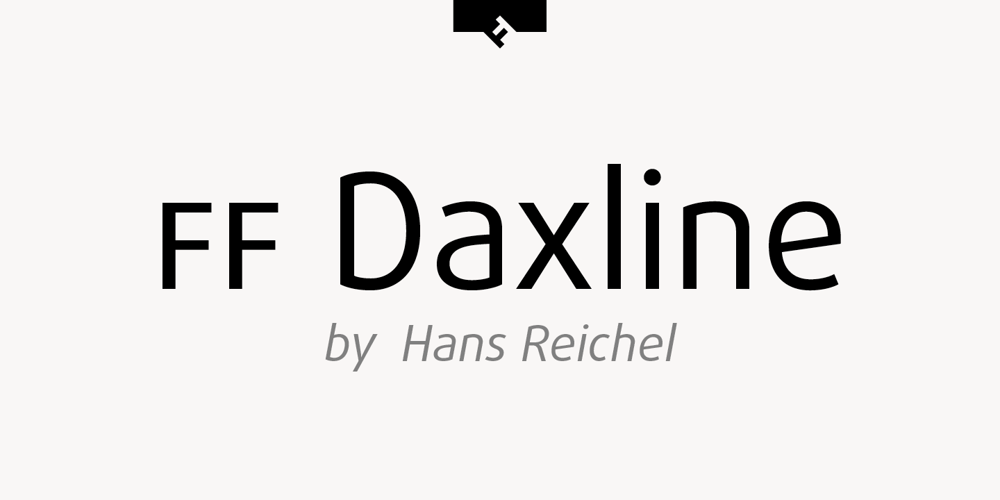
FF Daxline Font Family was designed by Hans Reichel and published by FontFont. FF Daxline contains 14 styles and family package options. German type designer Hans Reichel created this sans FontFont in 2005. The family has 14 weights, ranging from Thin to Black (including italics) and is ideally suited for advertising and packaging, book text, editorial and publishing, logo, branding and creative industries, poster and billboards, small text as well as web and screen design. FF Daxline provides advanced typographical support with features such as ligatures, small capitals, case-sensitive forms, fractions, super- and subscript characters, and stylistic alternates. It comes with a complete range of figure set options – oldstyle and lining figures, each in tabular and proportional widths. As well as Latin-based languages, the typeface family also supports the Cyrillic and Greek writing systems. This FontFont is a member of the FF Dax super family, which also includes FF Dax and FF Dax Compact.